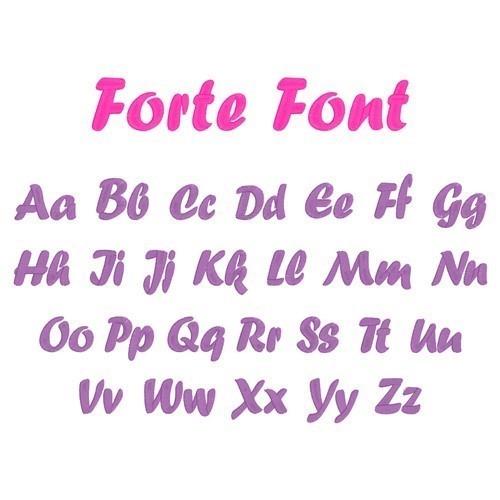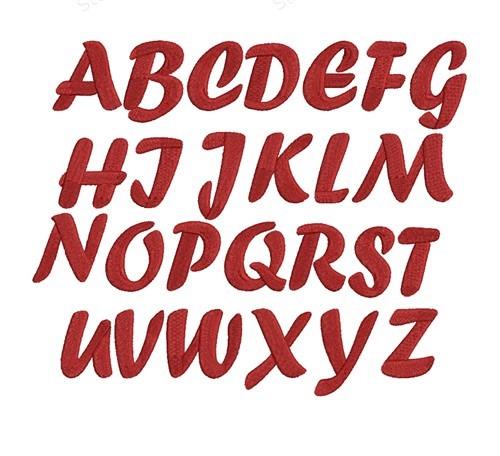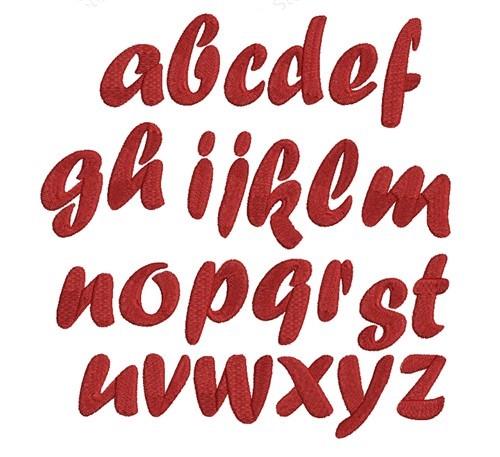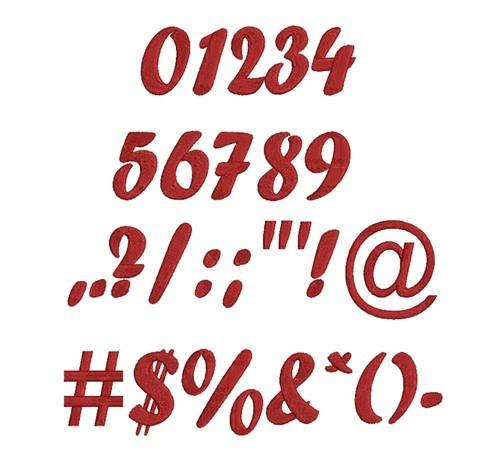
Maya Kreations is happy to present Forte - 11 Sizes Included Embrilliance Embroidery Font - Playful Handwriting Letters - 11 Sizes - BX font machine embroidery font which has The Forte Font showcases a playful and flowing script style with rounded letters, perfect for cheerful designs on items like aprons or totes. This machine embroidery font is available in Embrilliance formats. included. If you would like to view more embroidery fonts and alphabets please search our embroidery fonts page.